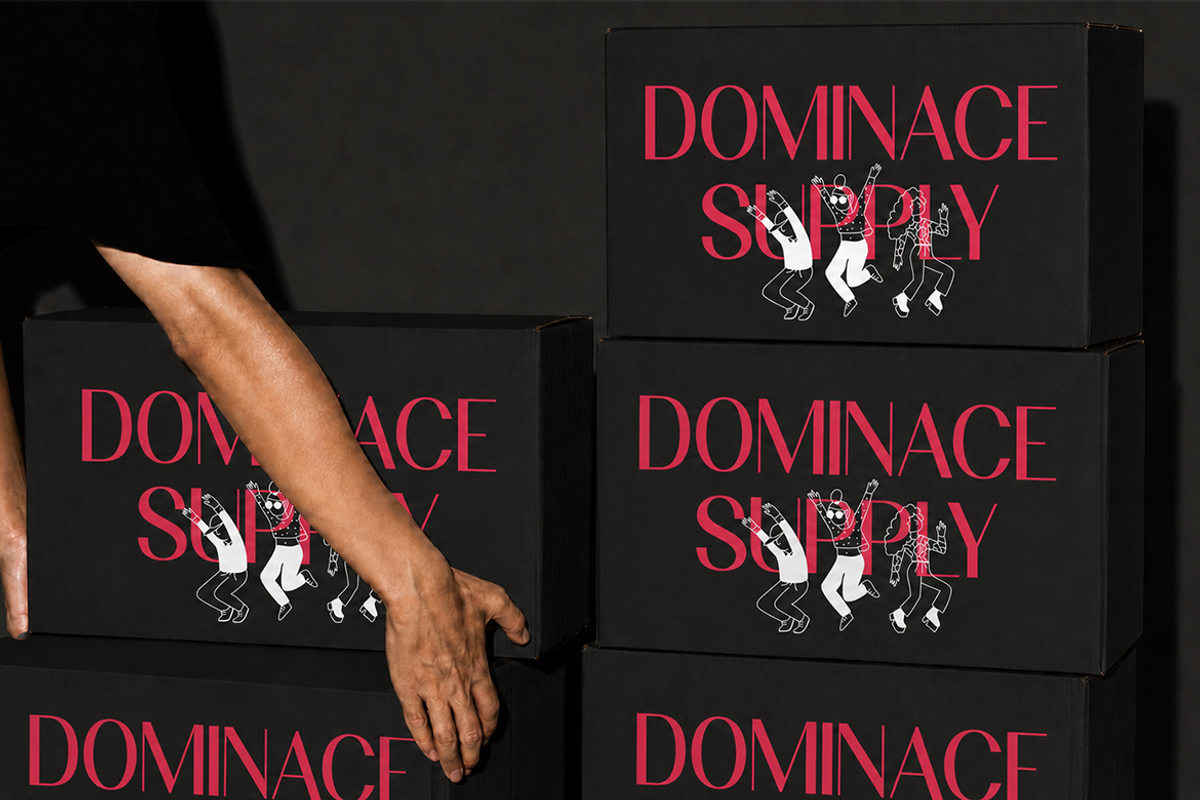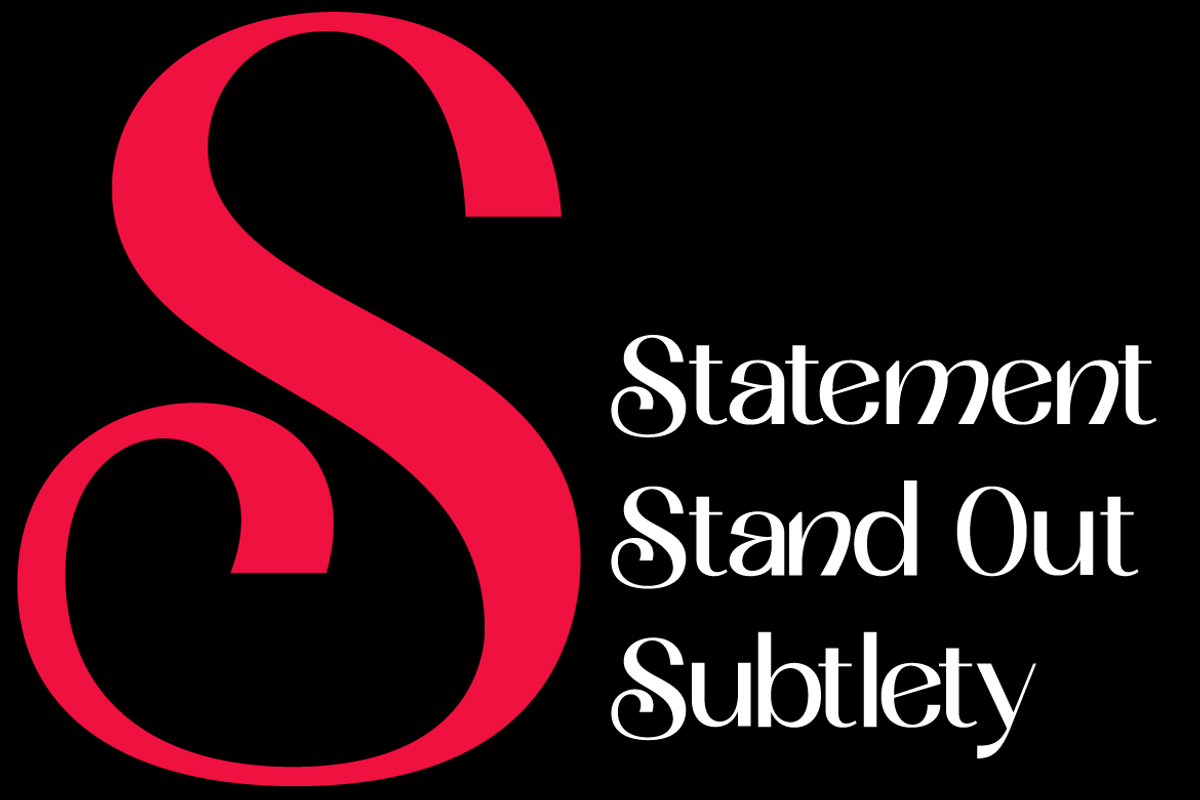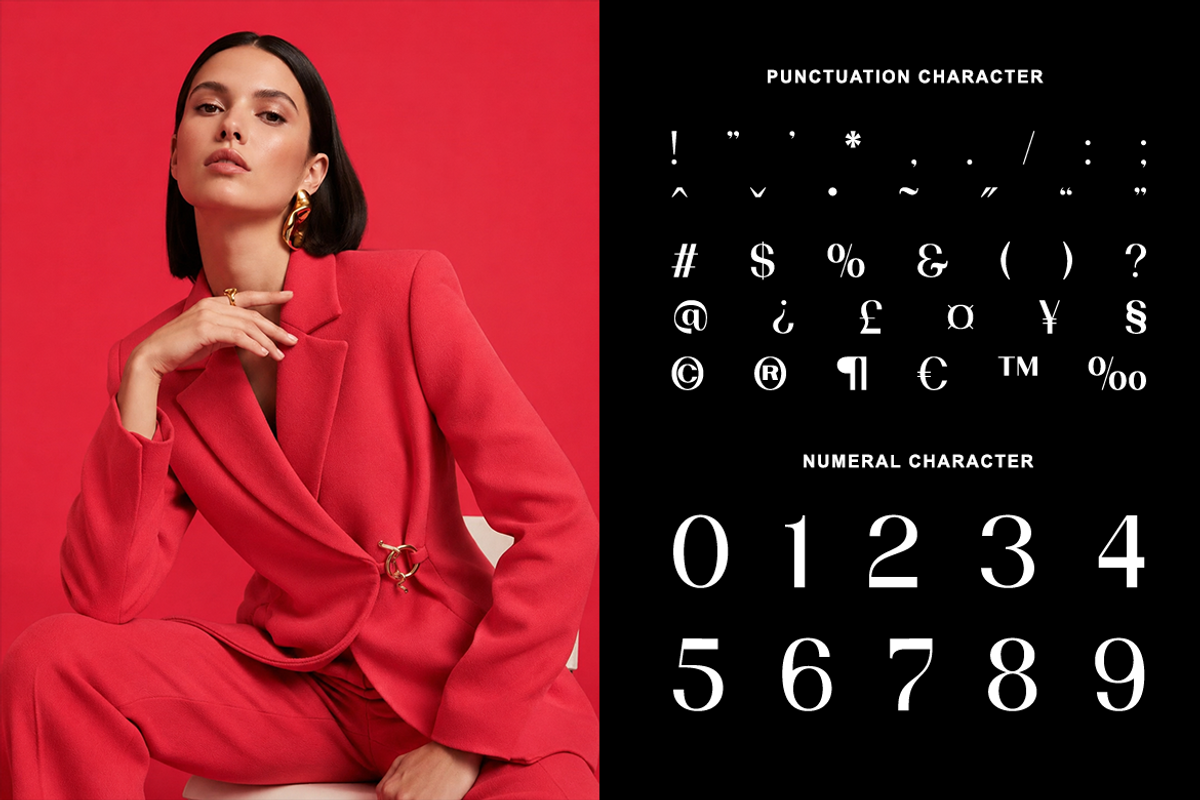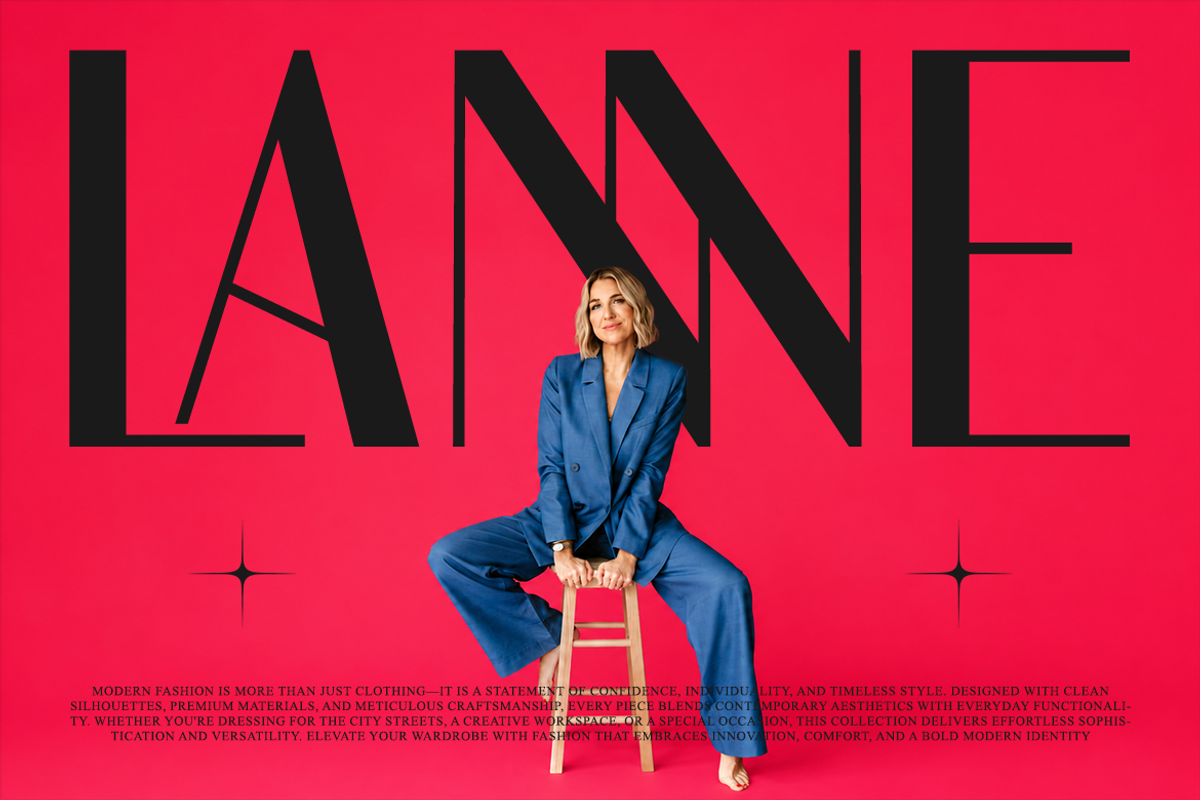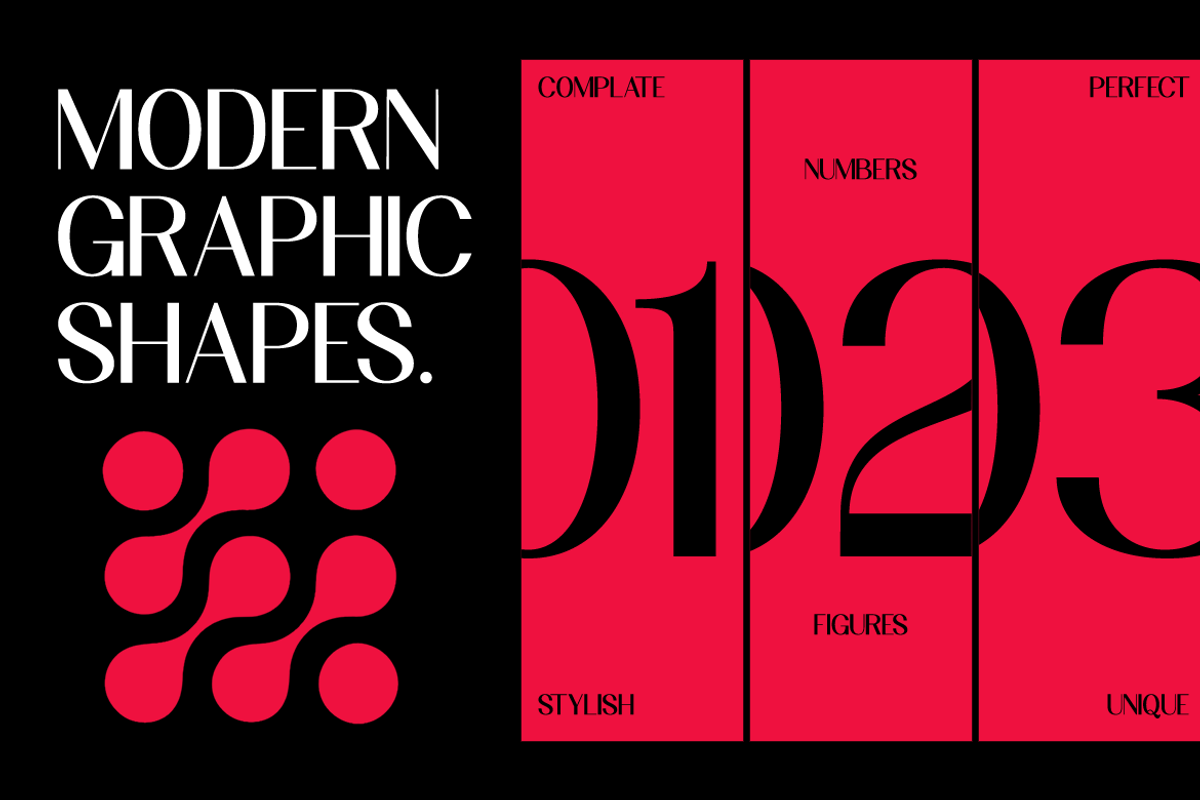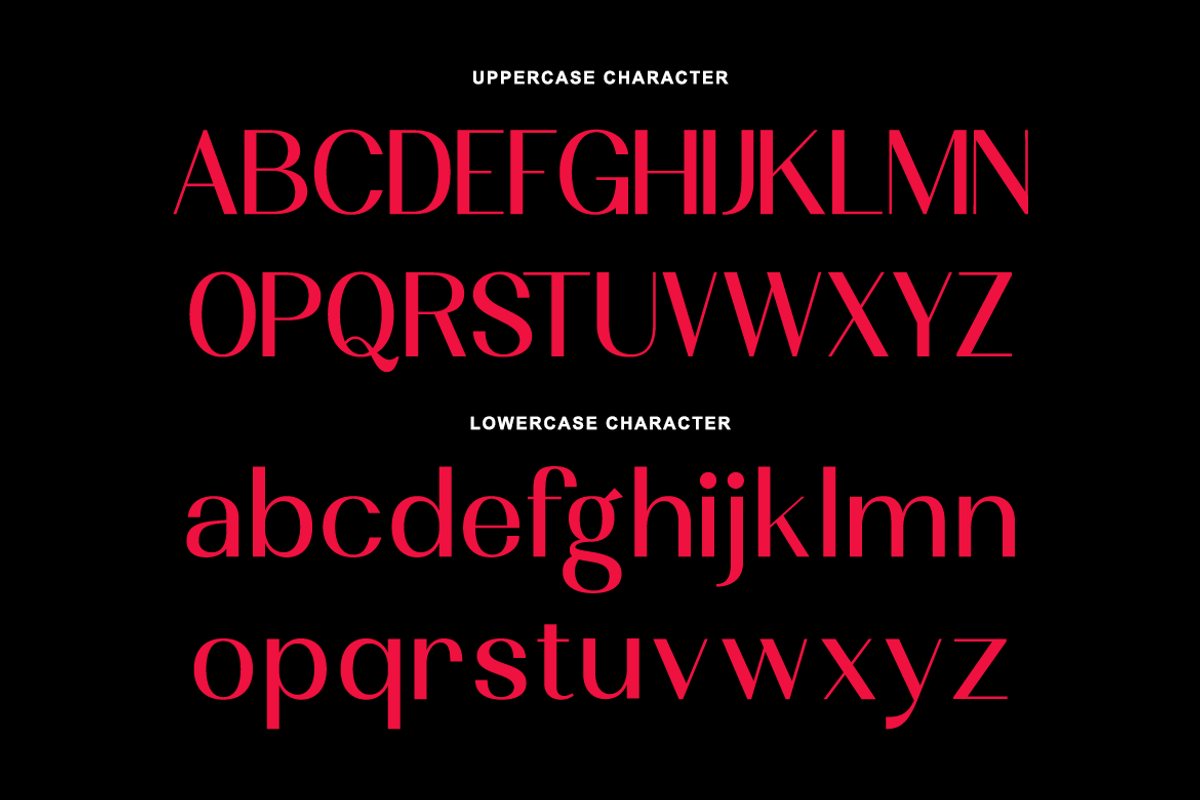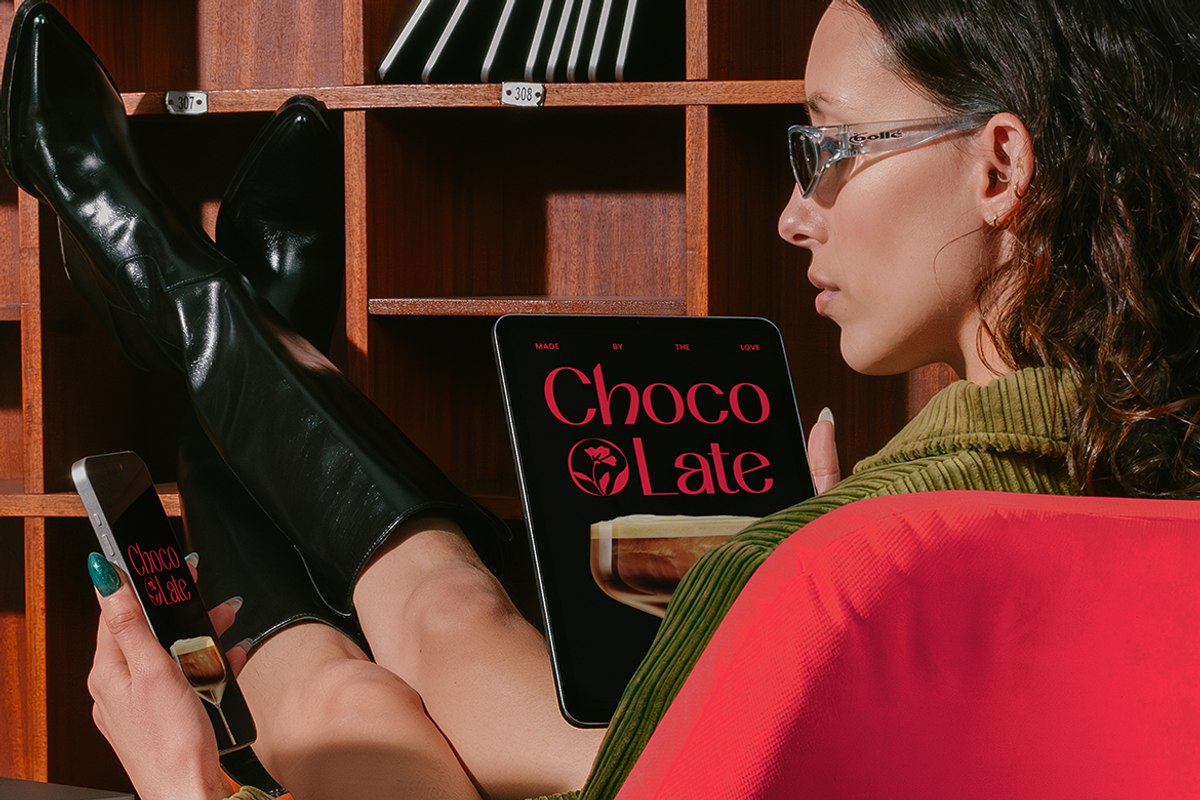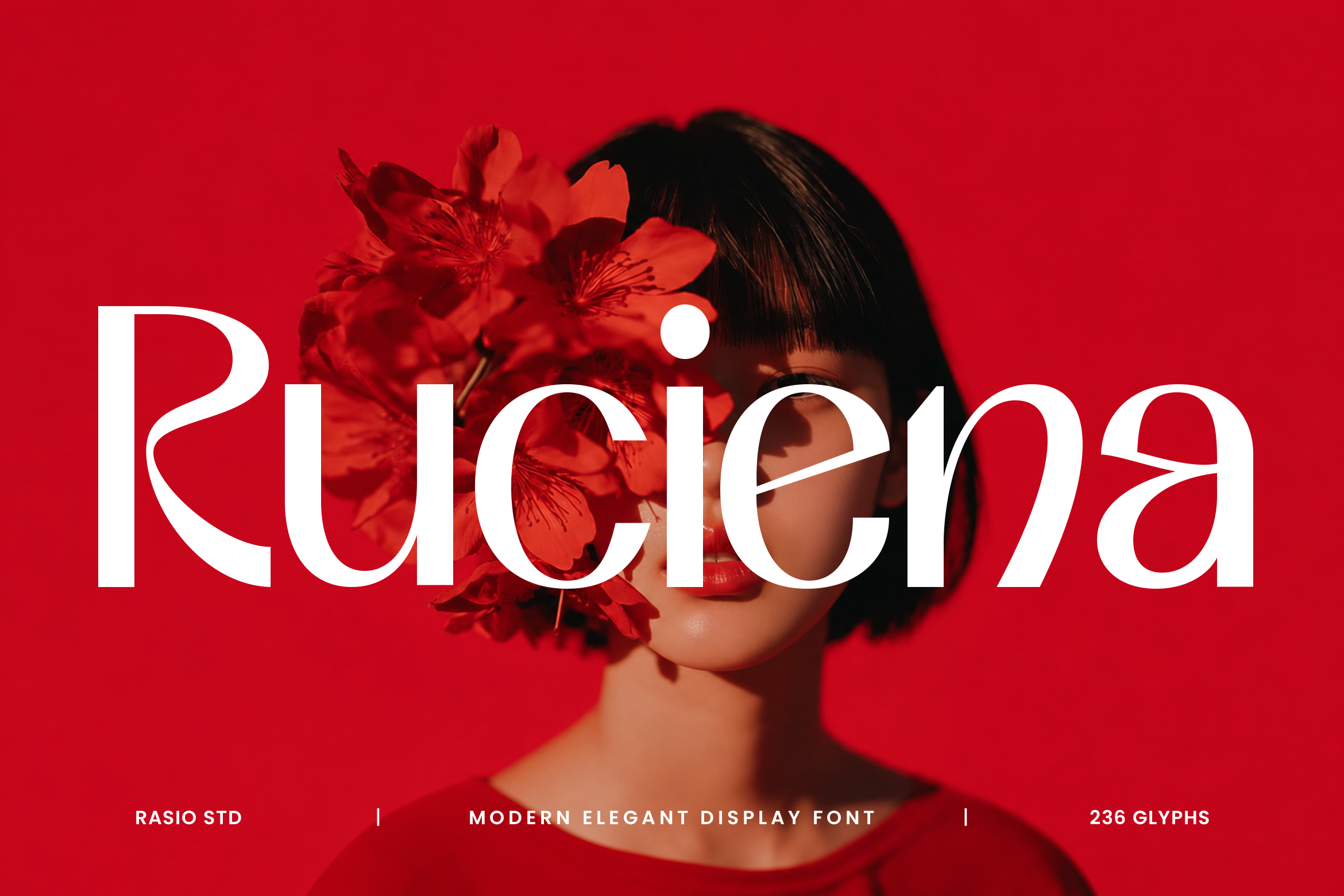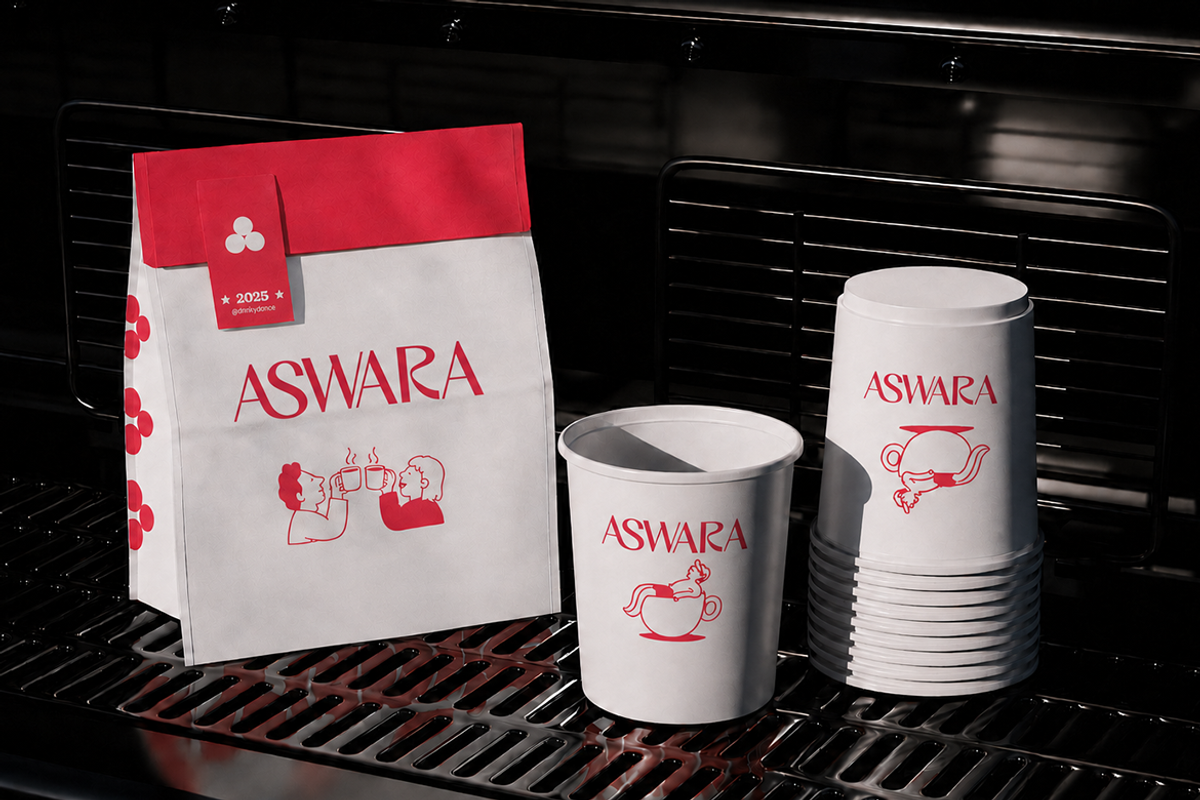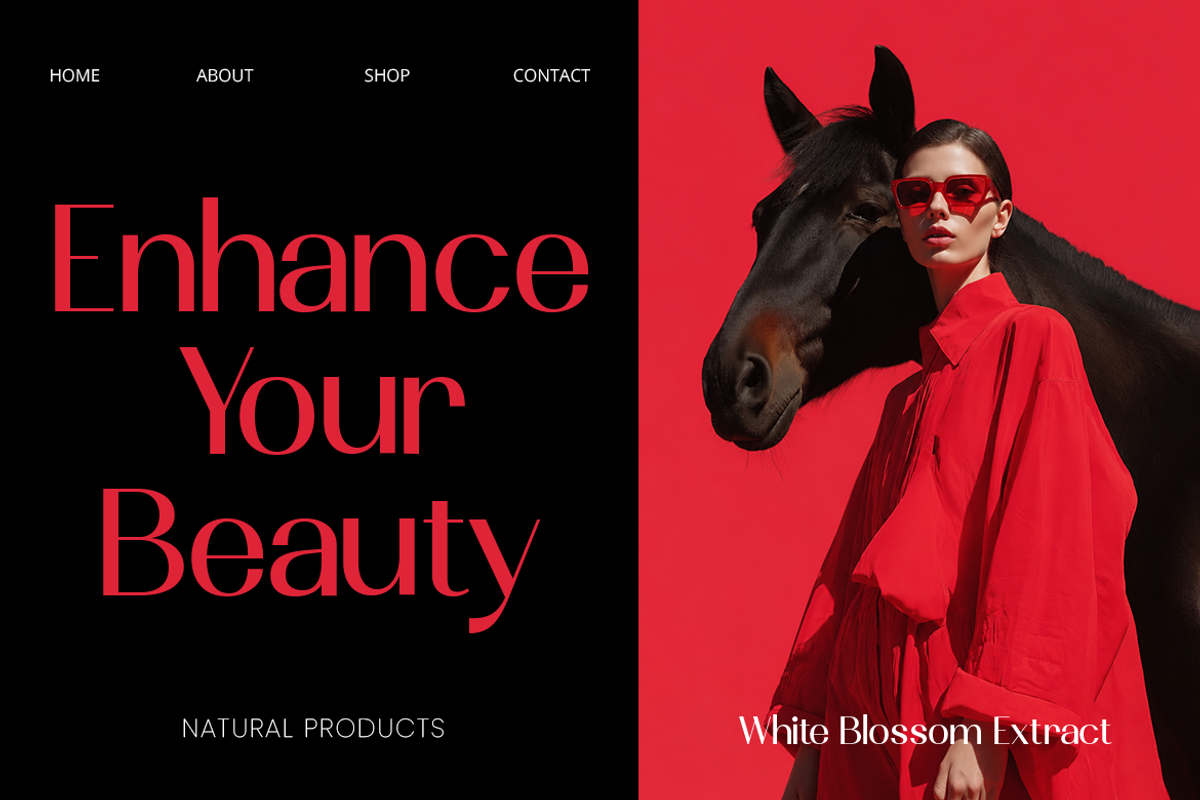
Ruciena Modern Elegant Display Font
Ruciena Modern Elegant Display Font is a refined high-contrast serif typeface created to deliver graceful sophistication with a contemporary editorial spirit. Combining slender stems, flowing curves, and beautifully balanced proportions, the font presents an elegant visual rhythm that feels luxurious without appearing overly decorative. Carefully sculpted letterforms feature subtle calligraphic influences, distinctive counters, and refined stroke transitions that give every character a graceful personality while maintaining exceptional clarity.
Built for modern creative professionals, Ruciena offers an extensive character set including uppercase and lowercase letters, numerals, punctuation to maximize creative flexibility. Its elegant construction performs beautifully across both large headlines and refined branding applications, allowing designers to create polished compositions with ease. Whether used for luxury fashion campaigns, cosmetic branding, premium product packaging, editorial magazines, boutique identities, jewelry promotions, wedding stationery, beauty advertisements, restaurant branding, or social media content, Ruciena adds a distinctive sense of elegance and artistic refinement while ensuring excellent readability across both digital and printed media.
Elegant high-contrast serif construction with refined modern proportions
Gracefully tapered strokes for a sophisticated editorial appearance
Delicate curved terminals that add softness without sacrificing clarity
Balanced letter spacing for luxurious headlines and premium branding
Distinctive character details with subtle calligraphic influences and graceful rhythm
Luxury fashion branding and premium visual identity systems
Editorial magazines, book covers, and sophisticated publishing layouts
Beauty, skincare, cosmetic, and fragrance packaging design
Wedding invitations, event stationery, and fine art prints
Boutique logos, jewelry branding, and upscale lifestyle marketing
Supports numerals, punctuation, and extensive symbol set